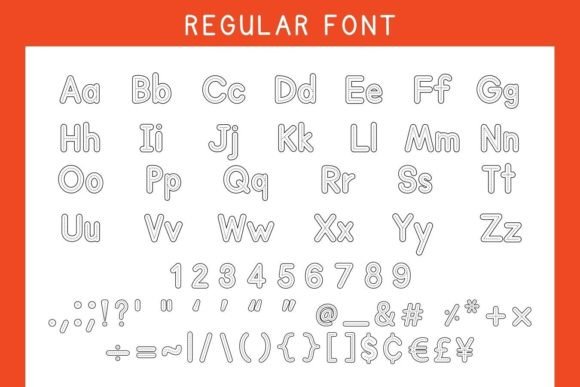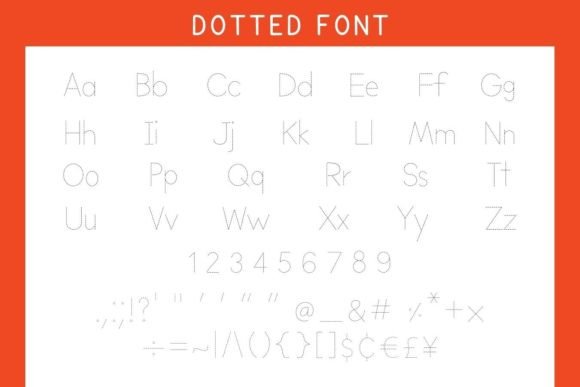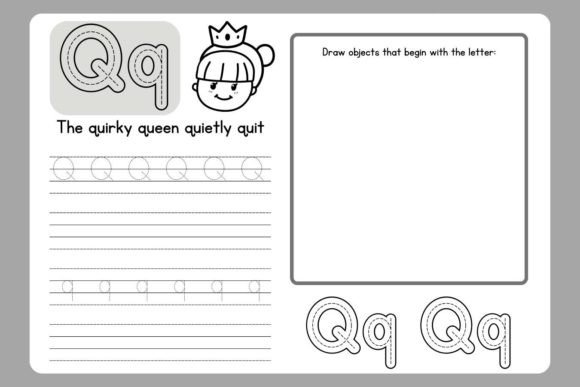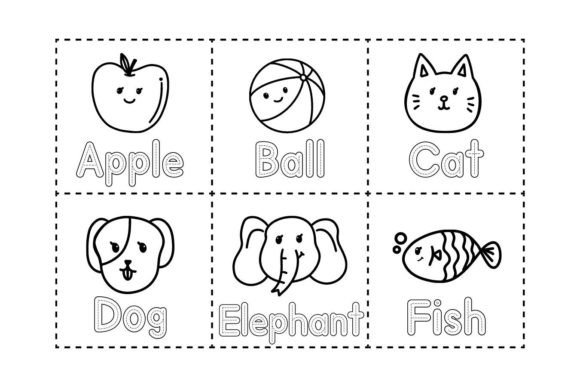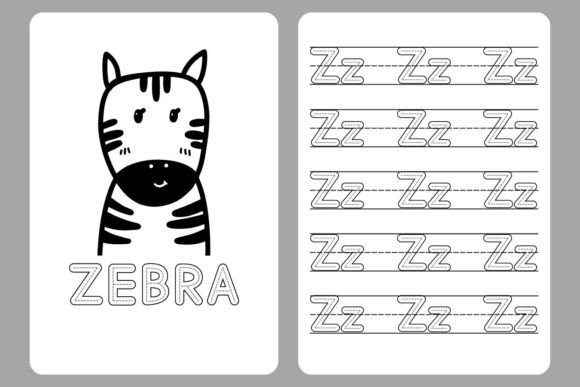
Unlock the Power of Alphabet Tracing Font
Do you remember the excitement of learning to write your first letter? Perhaps it was the thrill of mastering the alphabet, or the sense of pride that came with creating your own artwork. For many of us, those early days of learning to write are etched in our memories forever. As educators and parents, we want to recreate that magic for our students and children, and that’s where Alphabet Tracing comes in.
Alphabet Tracing Font is designed to make learning to write a breeze. With its clear and legible letterforms, this font is perfect for worksheets, learning materials, and educational resources. Whether you’re creating practice sheets for students or designing educational materials for your classroom, Alphabet Tracing Font is an invaluable tool that will make a world of difference in your students’ learning experience.
As a designer, you’ll appreciate the simplicity and versatility of Alphabet Tracing Font. Its clean design makes it easy to use in a variety of contexts, from worksheets to educational posters. With Alphabet Tracing Font, you can create engaging and effective learning materials that will help your students develop strong foundational writing skills.
Alphabet Tracing Font Key Features
- Unique Characteristics: The Alphabet Tracing Font is designed specifically for tracing and handwriting practice, with each letter featuring a clear and easy-to-follow outline.
- Alphabet and Number Support: The font includes a complete set of uppercase and lowercase letters, as well as numbers 0-9, making it ideal for handwriting and tracing practice.
Alphabet Tracing Font Review
Overall, I think the Alphabet Tracing Font is a decent choice for educational purposes. It has its strengths, but also some notable weaknesses.
- Easy to read and understand: The font is designed specifically for tracing, making it simple for children to recognize and write each letter.
- Clear and concise: Each letter is presented in a clean and well-defined manner, reducing confusion and making learning easier.
- Perfect for beginners: The font is ideal for young learners who are just starting to learn the alphabet.
- Limited flexibility: The font is designed specifically for tracing and may not be suitable for more complex layouts or designs.
- Lack of style: The font is functional but lacks a unique or creative touch, making it blend in with other, more visually appealing fonts.
- Not ideal for advanced learners: As the font is geared towards beginners, it may not provide enough challenge or variety for more experienced learners.
Overall, I think the Alphabet Tracing Font is a solid choice for educational purposes, but it may not be the best option for more advanced or creative projects.
Use a large font size to make the letters easy to trace.
Experiment with different font styles and colors to create visually appealing worksheets.
Consider adding images or illustrations to make the worksheets more engaging.
Alphabet tracing worksheets for preschool or kindergarten students.
Custom educational materials for students with special needs.
Practice sheets for students learning a new alphabet or language.
Is Alphabet Tracing Font available in bold and italic styles?
Yes, Alphabet Tracing Font is available in bold and italic styles, making it easy to create visually appealing and engaging tracing activities. The bold style is ideal for emphasizing key letters or words, while the italic style can be used to add variety and interest to tracing exercises.